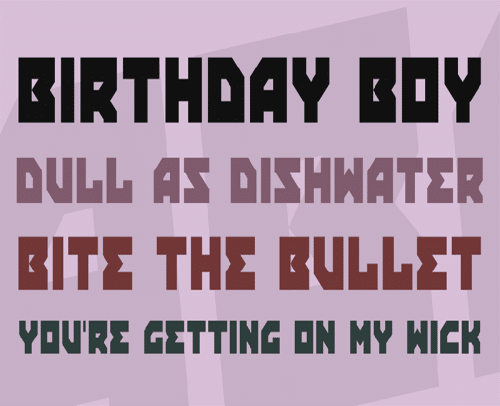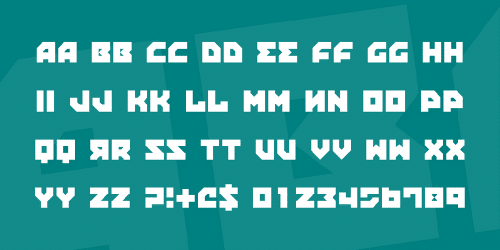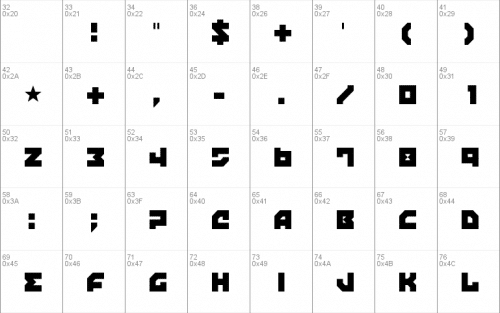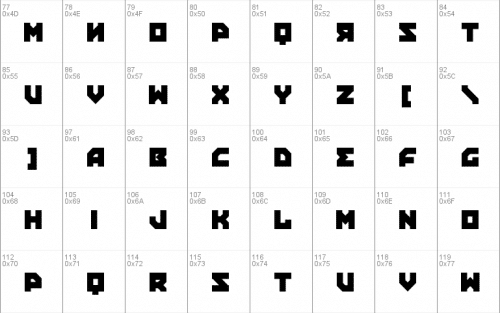
Propaganda is supposed to look like lettering that might appear on a soviet propaganda poster. There are other fonts like it out there, but this is my take on it.